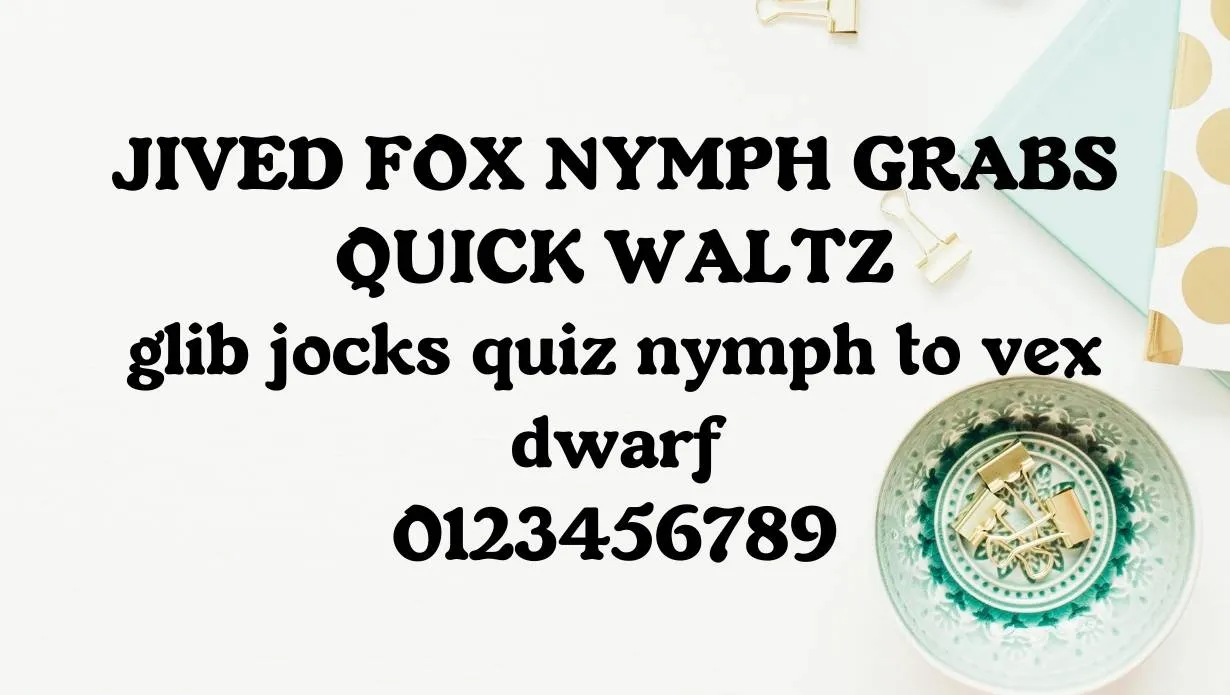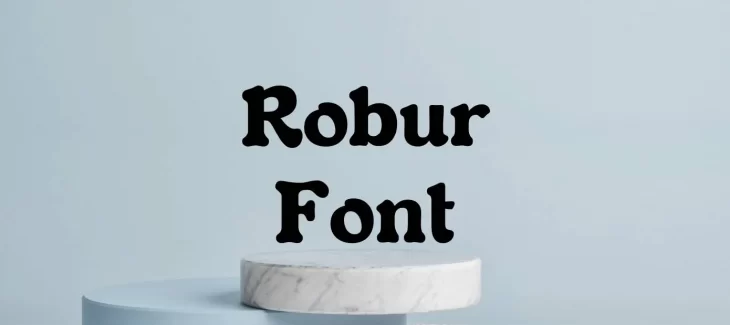
Robur Font is a serif typeface designed by Heinrich Jost and released through the German type foundry D. Stempel AG. The design is a revival of an early 20th-century original by Rudolf Koch, but with significant changes to both the letterforms and the overall proportions.
Robur Font was first released in a single weight in 1922, with subsequent releases including italics (1923), light and bold weights (1924), and condensed and extended versions (1925). Jost made further changes to the design in 1931, resulting in the release of Robur Schmalfett (“narrow Robur”) and Robur Breitfett (“wide Robur”).
The original Robur design is characterized by its high x-height, small counter forms, and dramatic thicks-to-thins. Jost’s changes increased the x-height and made the counters more open while retaining the overall proportions of Koch’s design.
Who Used Robur Font?
Robur Font is best used for headlines and short blocks of text. It’s particularly well suited for display purposes, such as in advertising and branding. The high x-height makes it highly legible in large sizes, while the small counters give it a compact appearance that helps it stand out on the page.
Robur Font Family Appearance
Is Robur a good website font?
Robur is an excellent website font because it is easy to read and works well on all screen sizes.
Who owns the Robur typeface?